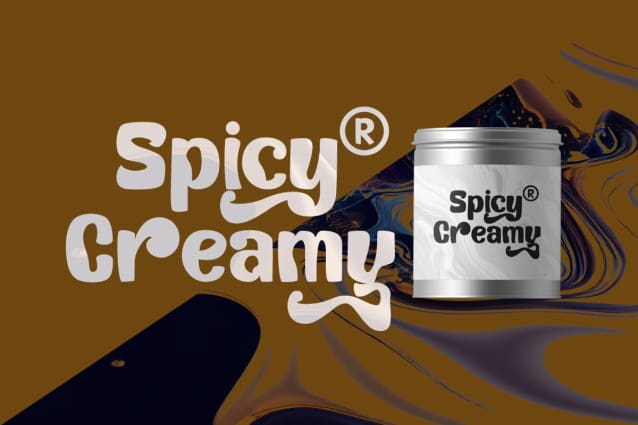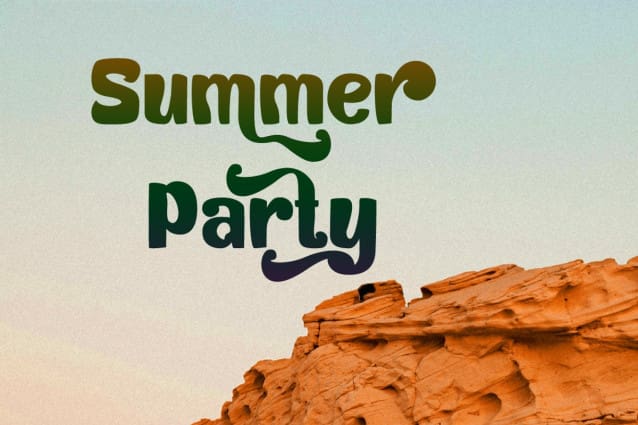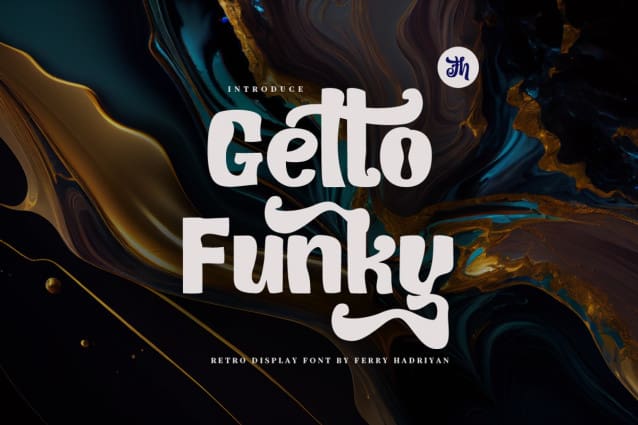
Getto Funky Font
Getto Funky Font is display font with fun retro style, with swashes on OpenType feature include of the font. Suitable for design, element design, event, logo, and awesome work, etc…